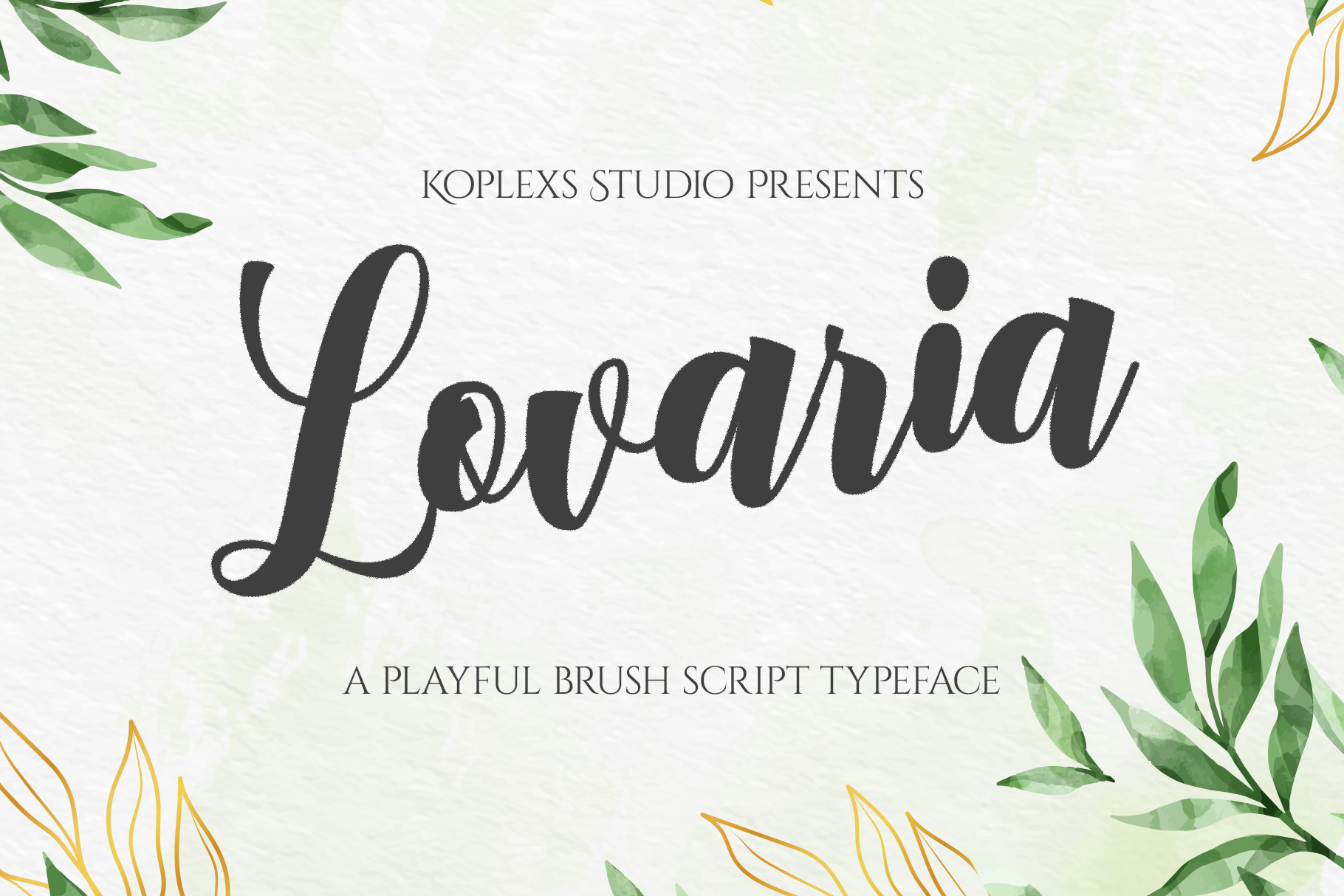
Lovaria Font
Lovaria Font is an elegant Handwritten Script Font designed with smooth calligraphy strokes and a luxurious cursive flow. Crafted for designers who value style and sophistication, this typeface blends the charm of a Signature Font with the refinement of a Calligraphy Font, making it a perfect choice for branding, weddings, and premium visual identities. Its modern aesthetic and graceful curves ensure your designs stand out with timeless beauty.
This versatile typeface works flawlessly as a wedding font, branding font, logo font, cosmetic font, aesthetic font, elegant font, and luxury font. Whether you're creating invitations, packaging, social media graphics, or high-end brand identities, Lovaria Font delivers a polished and professional look. Its balanced readability and expressive style make it an essential addition to any designer’s modern font collection.